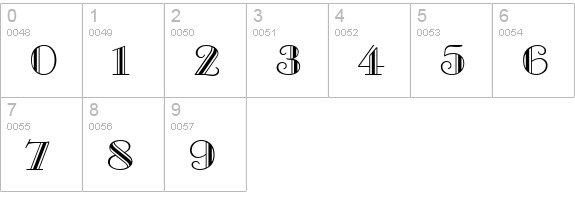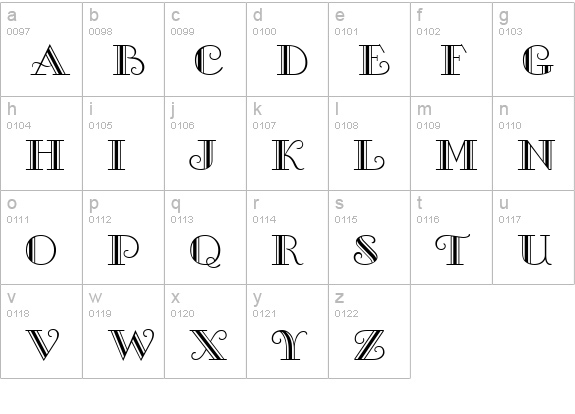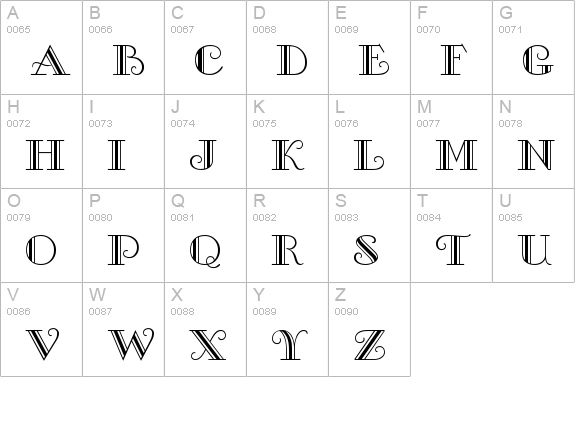
Gallia Font Details
Introducing Gallia, a stunningly elegant font that effortlessly combines classic sophistication with a modern twist. With its clean lines and graceful curves, Gallia exudes an air of refinement and versatility that makes it perfect for a wide range of design projects. Crafted with meticulous attention to detail, Gallia offers a harmonious balance between legibility and artistic flair. Its timeless aesthetic makes it suitable for both professional and personal use, elevating any project to new heights of visual appeal. But what truly sets Gallia apart is its accessibility - it's completely free! That's right, you can now enjoy the beauty of Gallia without spending a dime. This means that designers, students, and enthusiasts alike can have access to a high-quality font that adds a touch of elegance to any endeavor. To make it even more convenient, Gallia is freely available to download at FontsMarket.com. There, you can easily access this exquisite font and incorporate it into your creative projects with ease. Whether you're designing a logo, a website, or a poster, Gallia will effortlessly enhance your work with its timeless charm and versatility. So, why wait? Discover the sophisticated allure of Gallia today and let it transform your designs into works of art. Download this exquisite font for free at FontsMarket.com and unlock a world of endless creative possibilities.